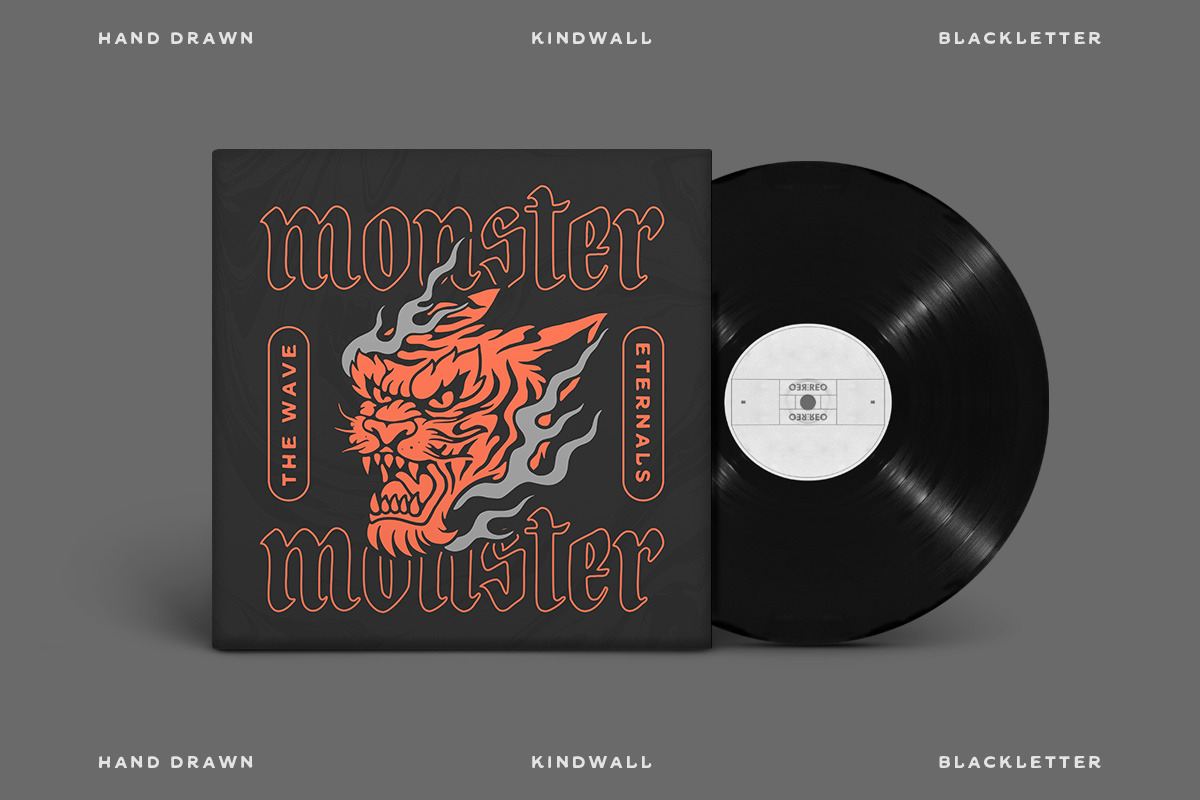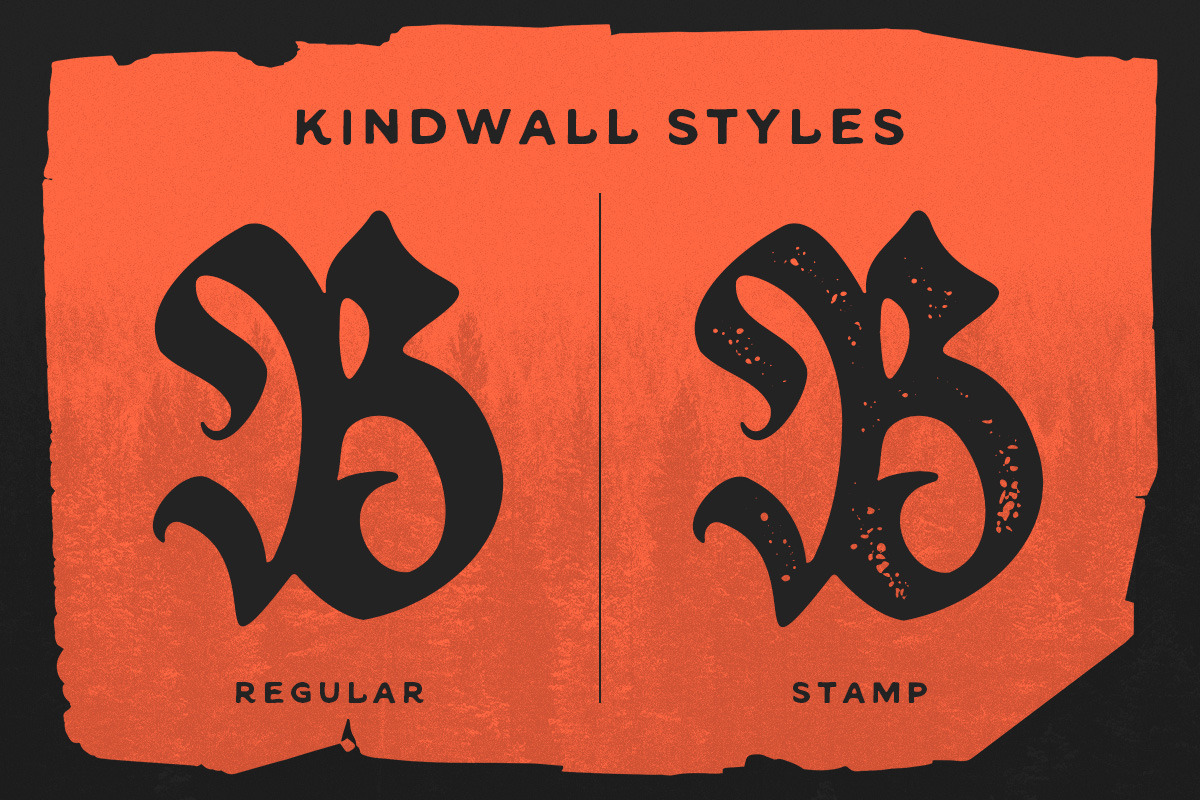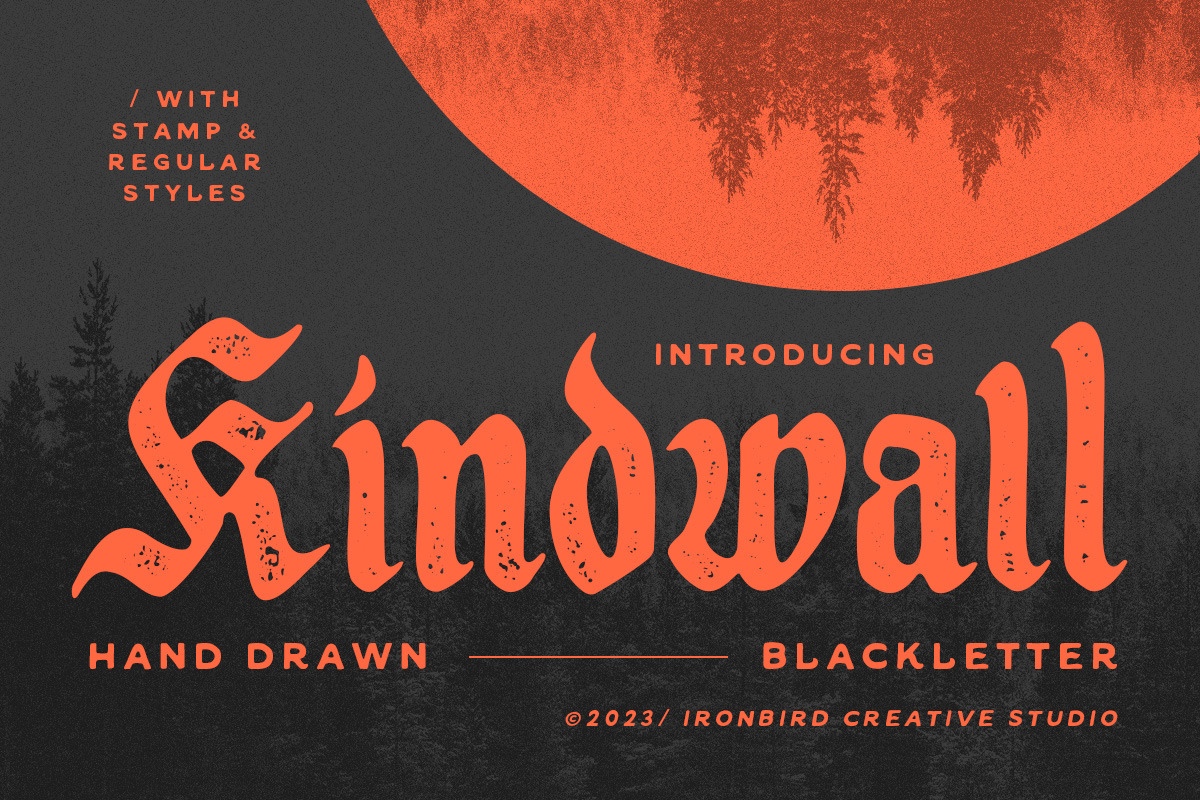
IC Kindwall Font
IC Kindwall Font is carefully hand-drawn and organically crafted, boasting two captivating styles: Regular & Stamped. This font is tailor-made for commanding headlines, captivating packaging, and alluring labels, exuding a robust and assertive persona while exquisitely channeling a vintage aesthetic, characteristic of the esteemed blackletter tradition.
IC Kindwall Blackletter Font Preview
This preview highlights the unique shapes and multi-height variations of the IC Kindwall Font.